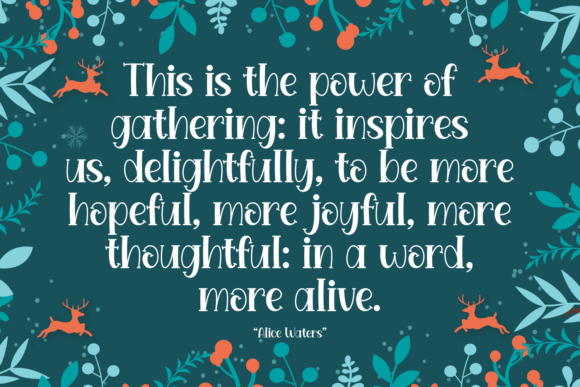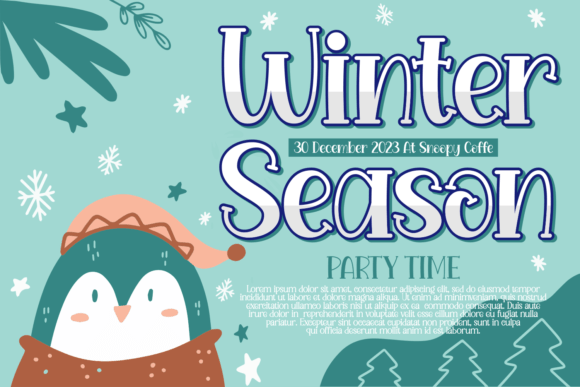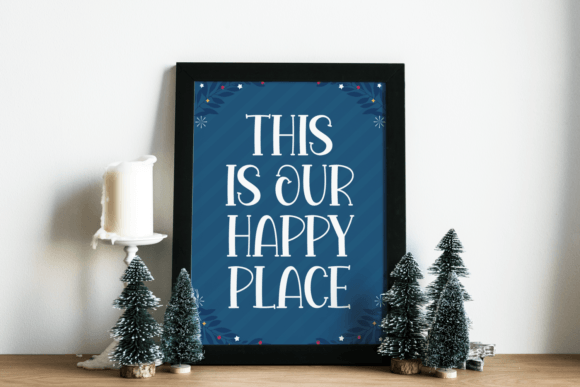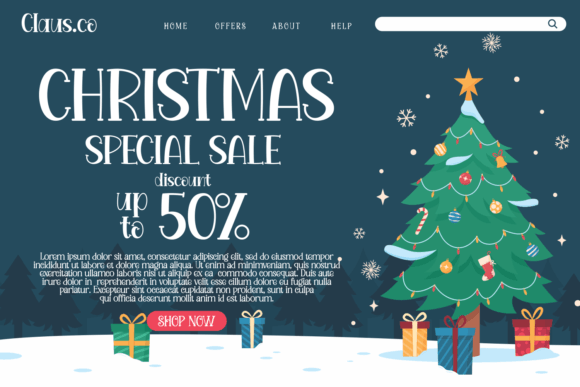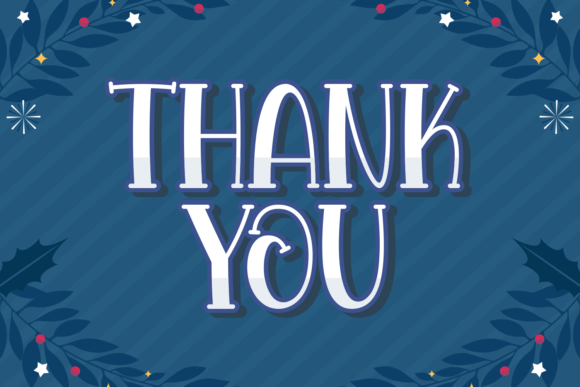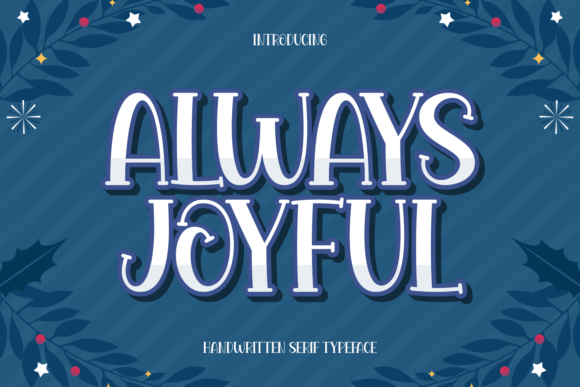
Infusing Joy into Your Designs
As a designer, there’s nothing quite like the thrill of creating something that brings a smile to someone’s face. Whether it’s a birthday invitation, a heartfelt letter, or a social media post, the right font can make all the difference in setting the tone and evoking emotions. And that’s where the “Always Joyful Font” comes in – a delightful serif handwritten font that’s sure to add a touch of warmth and personality to your text.
With its charming and graceful strokes, this font is the perfect choice for designers looking to infuse their content with a sense of happiness and charm. Whether you’re working on a personal project or a client’s design, Always Joyful is sure to bring a smile to your face – and that of your audience. Its versatility makes it a valuable addition to any designer’s toolkit, and we can’t wait to explore its many possibilities.
- Unique Characteristics: Designed with a playful, cursive feel and a wide range of expressive characters to convey joy and friendliness
Designer Review: Always Joyful Font
Overall, I was quite excited to dive into the Always Joyful Font. Here’s my honest take on what works well and what could be improved.
- The font’s friendly and approachable personality shines through in its rounded edges and playful flourishes.
- The bold weight options are great for making a statement, especially in headings and titles.
- The font’s x-height is well-balanced, making it easy to read in both body text and larger sizes.
- The font’s legibility starts to break down at smaller sizes, which might be a concern for digital use.
- The font’s versatility is somewhat limited by its relatively narrow character set.
- The font’s OpenType features could be more extensive, offering more creative options for designers.
While Always Joyful Font has its strengths, it’s not without its limitations. With some tweaks to address these issues, I think this font has the potential to be a real showstopper.
Overall, I’d give Always Joyful Font 3.5 out of 5 stars. It’s a solid choice for designers looking for a friendly, approachable font, but it may not be the best fit for every project.
To get the most out of the Always Joyful Font, use it for:
– Headlines and titles to add a touch of whimsy and fun.
– Emphasizing important text to make it stand out.
– Creating a playful and approachable brand identity.
The Always Joyful Font is perfect for:
– Children’s books and educational materials.
– Branding and marketing materials for fun and quirky businesses.
– Social media graphics and posts that need a playful touch.